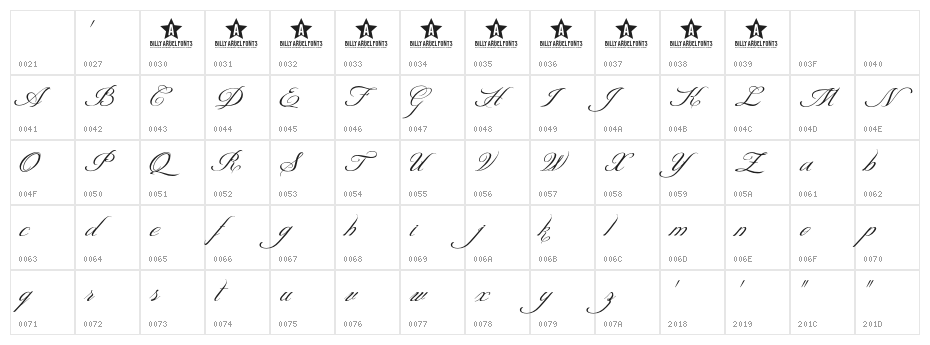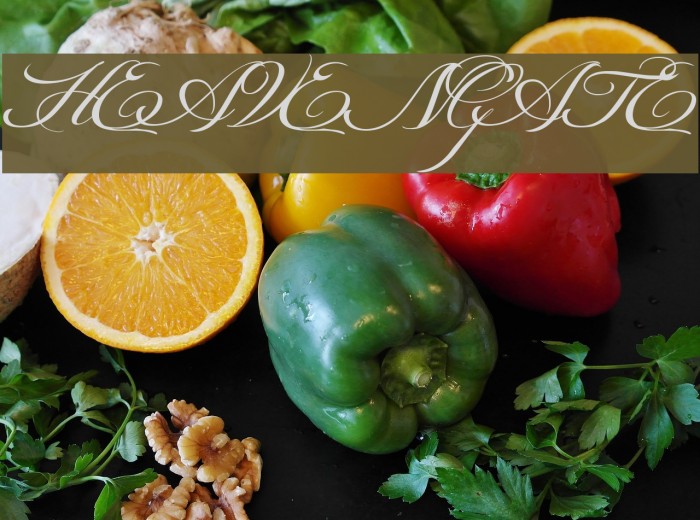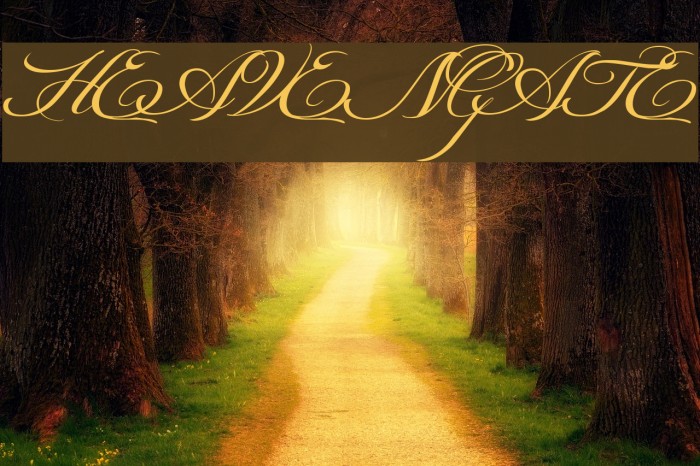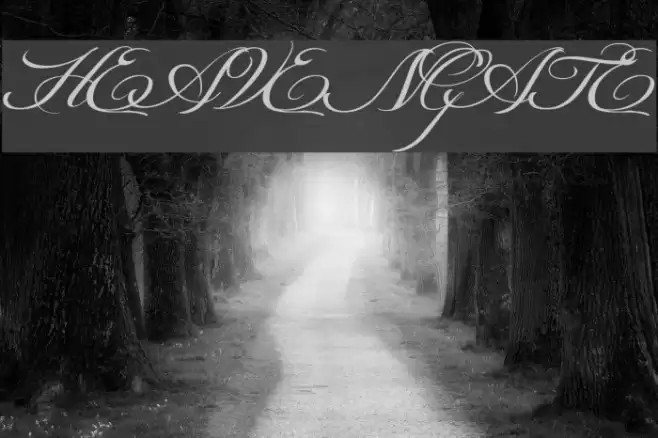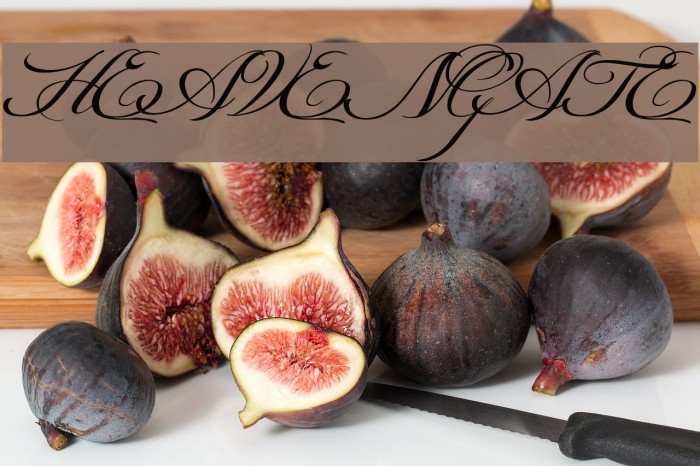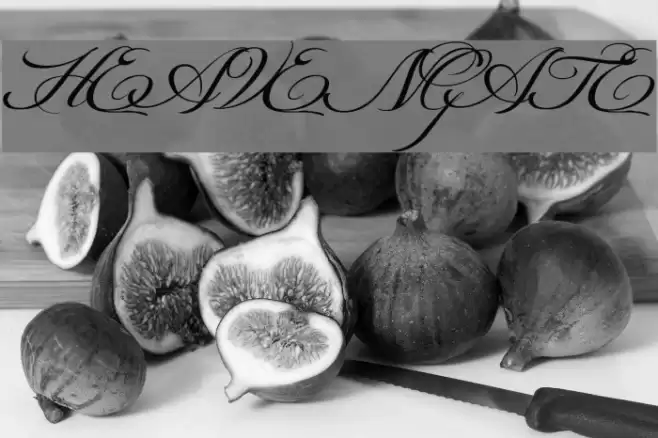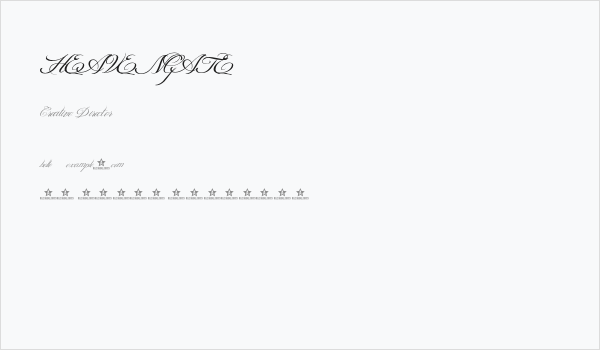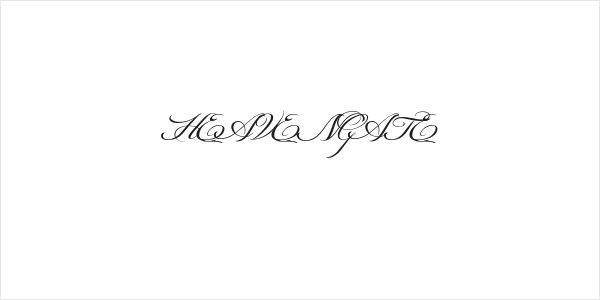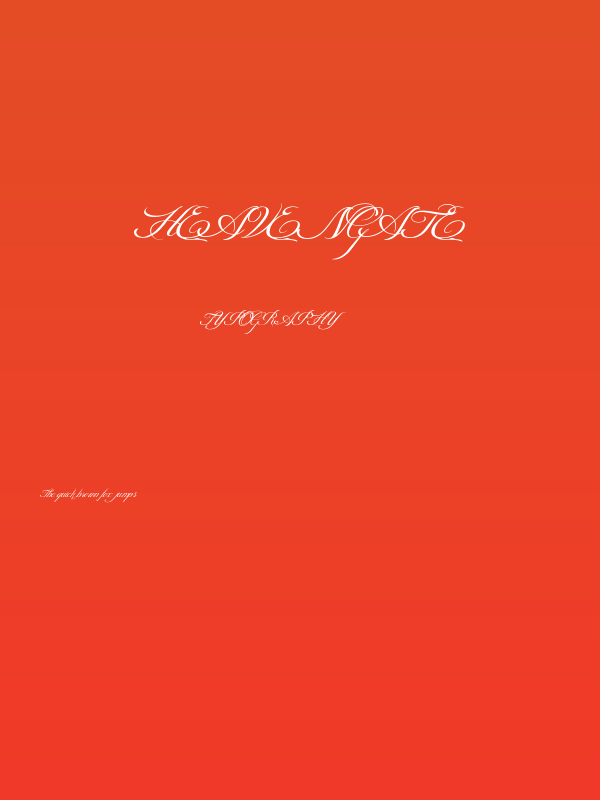
HEAVENGATE Font
HEAVENGATE Description
This elegant script font features intricate, flowing lines and a sophisticated style that evokes a sense of luxury and refinement. The uppercase letters are adorned with elaborate swashes and flourishes, while the lowercase characters maintain a graceful and fluid appearance. The font's design is reminiscent of classic calligraphy, with a modern twist that makes it suitable for a variety of contemporary applications. Its delicate strokes and high contrast between thick and thin lines add to its overall elegance, making it an ideal choice for projects that require a touch of class and sophistication.
CategoriesCalligraphic
Overall StyleElegant, Classic
Use CaseLogos, Invitations, Branding
Proposed ProjectsWedding invitations, luxury branding, elegant packaging, high-end product labels, and sophisticated event posters.